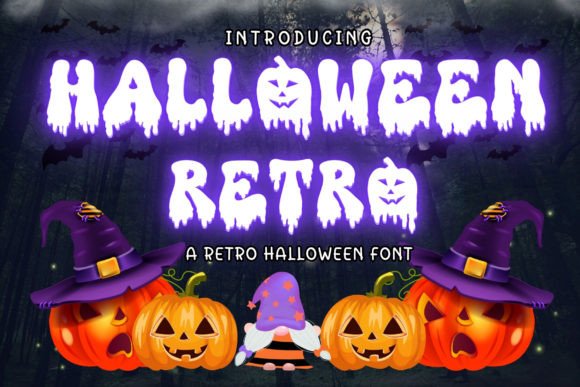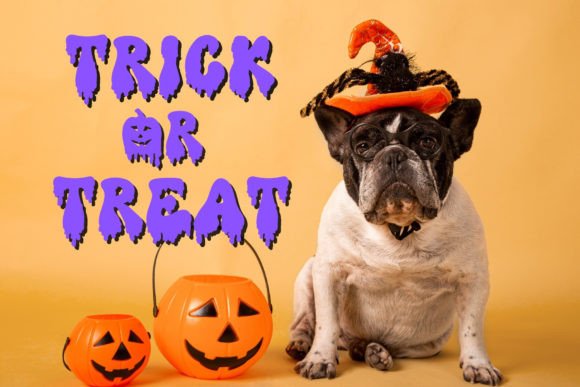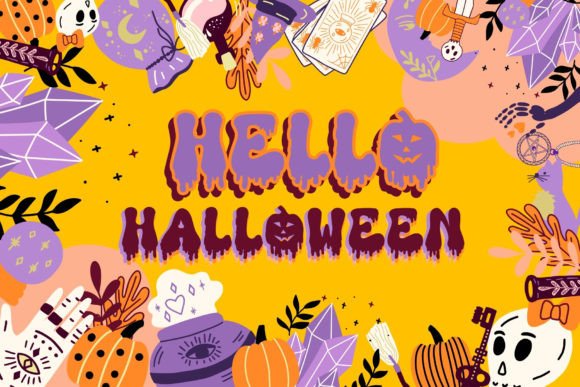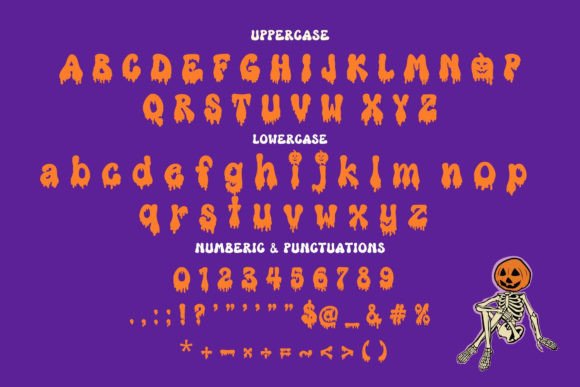
Halloween Retro Font
About the Halloween Retro Font
Experience the unique personality of Halloween Retro Font, a font designed for impact. Halloween Retro is a cool Halloween display font. It embodies playfulness and authenticity and is the perfect choice for all your favorite projects such as blog posts, logos, branding, ads, invitations, greeting cards, planners, photo albums, decorations, and more. Add it to any of your designs, and enjoy the results!
Halloween Retro’s playful, slightly spooky aesthetic makes it ideal for headlines, posters, and packaging related to Halloween or similarly themed events. It works exceptionally well for branding projects targeting a younger demographic or those seeking a fun, retro feel. Avoid using it for body text or UI elements; its decorative nature compromises readability in smaller sizes or continuous blocks of text.
Pairing it with a clean sans-serif like Open Sans for body copy provides a strong contrast, allowing the display font to shine. For a more vintage feel, consider pairing it with a serif like Playfair Display. If a more modern approach is needed, a geometric sans-serif such as Futura would create a striking, balanced composition.
The font’s overall personality is bold and whimsical, conveying a sense of fun and nostalgia. It’s not suitable for projects requiring sophistication or seriousness; instead, it thrives in contexts where a playful, eye-catching design is paramount.
Halloween Retro Font Usage Examples
Halloween Retro Font Example